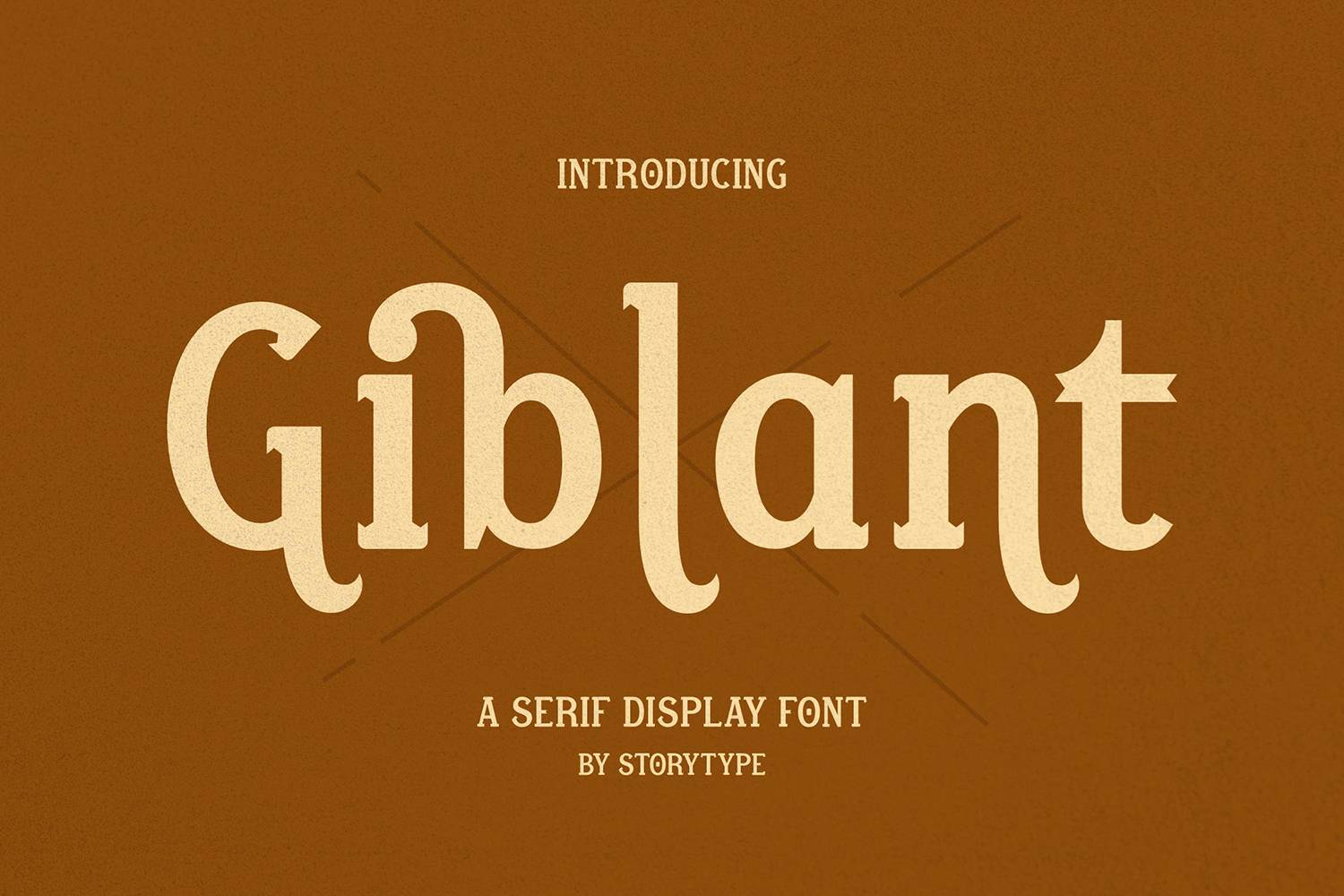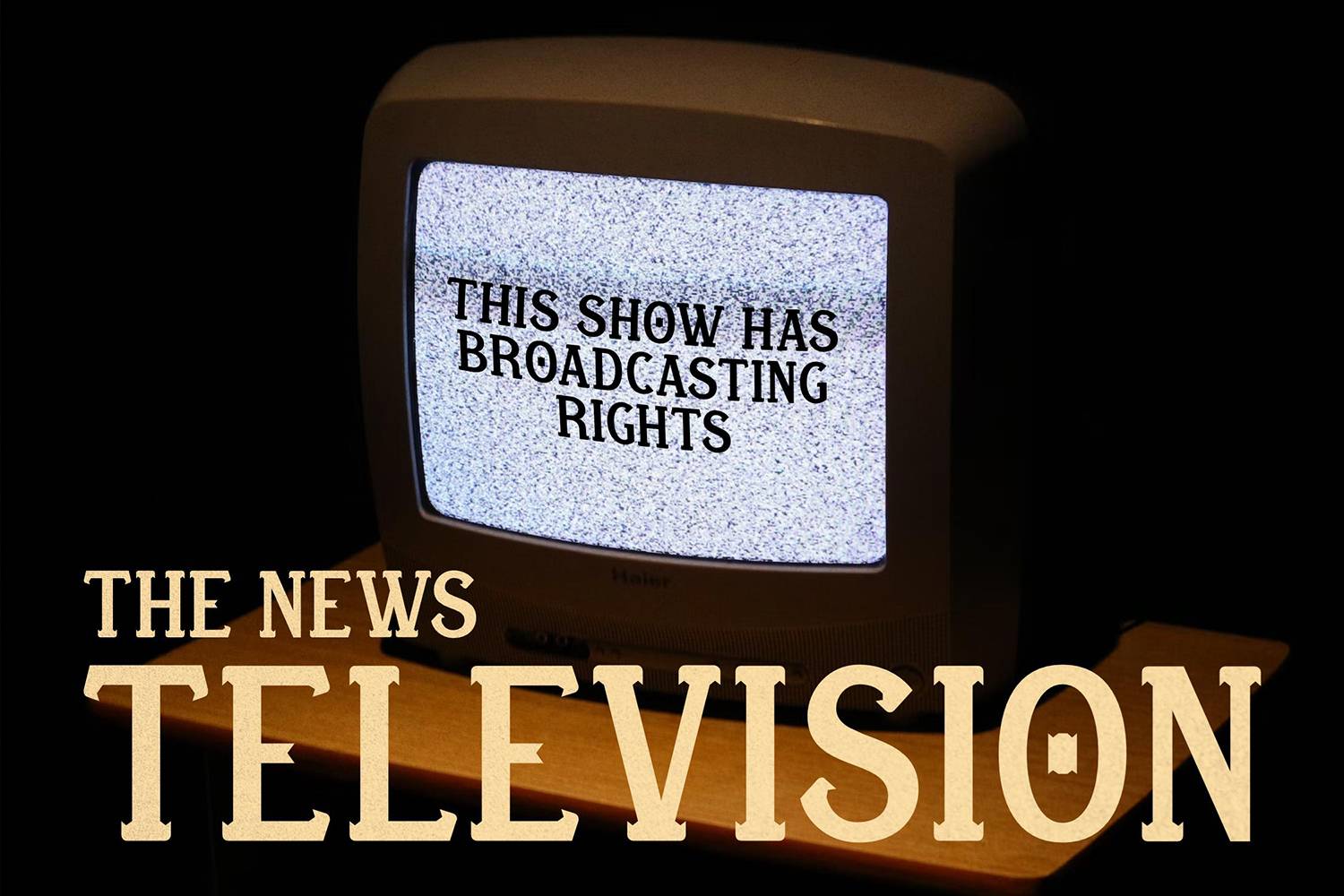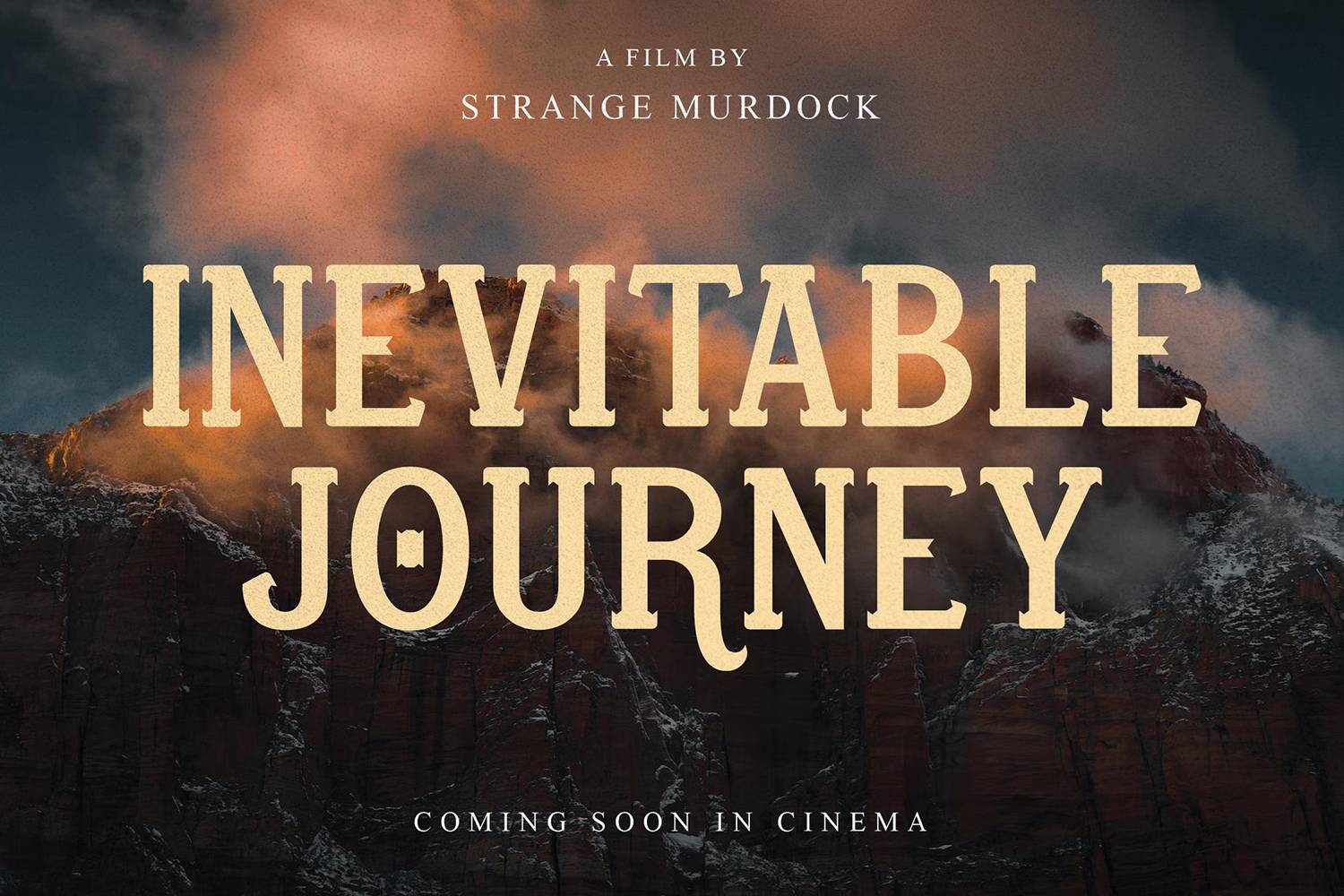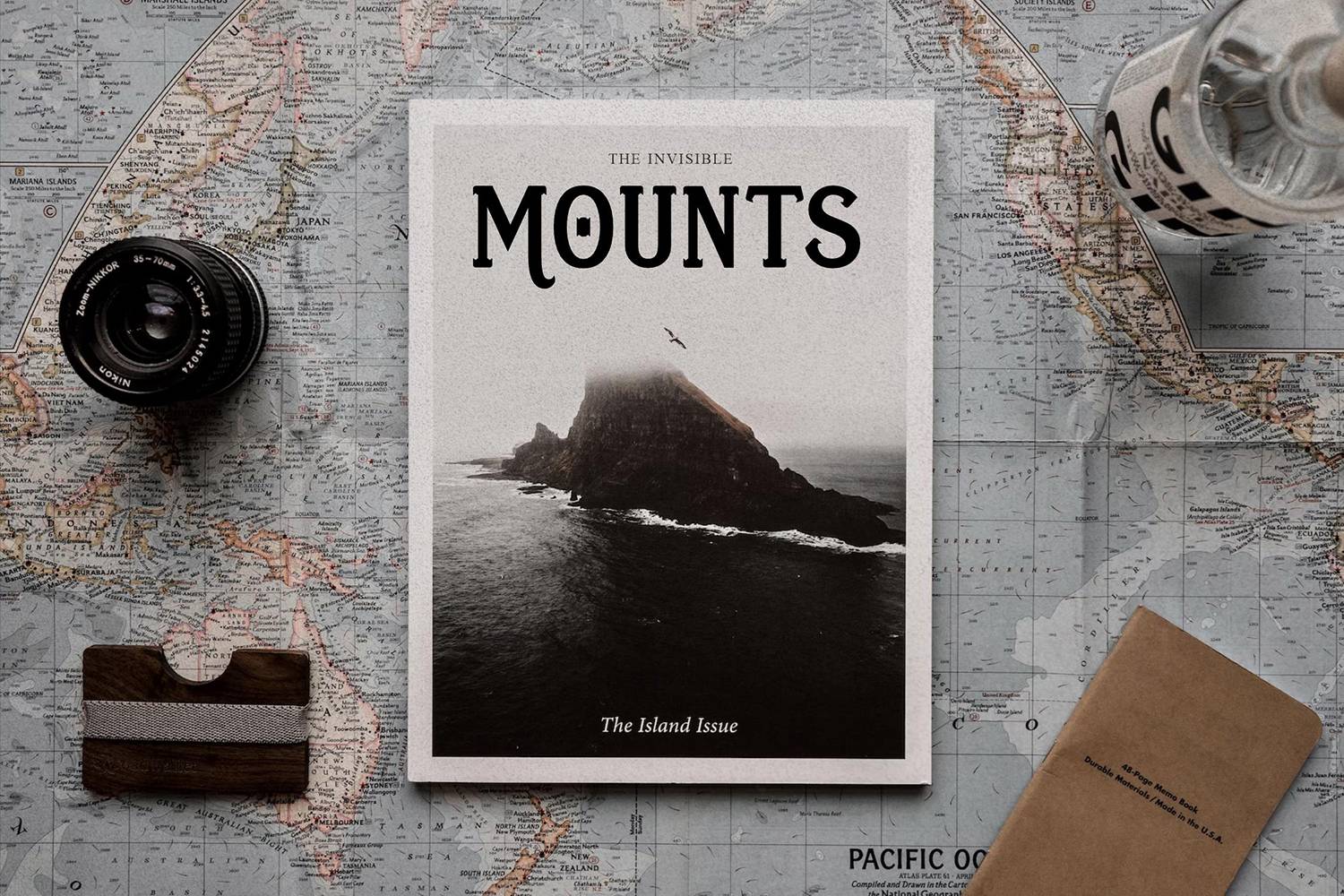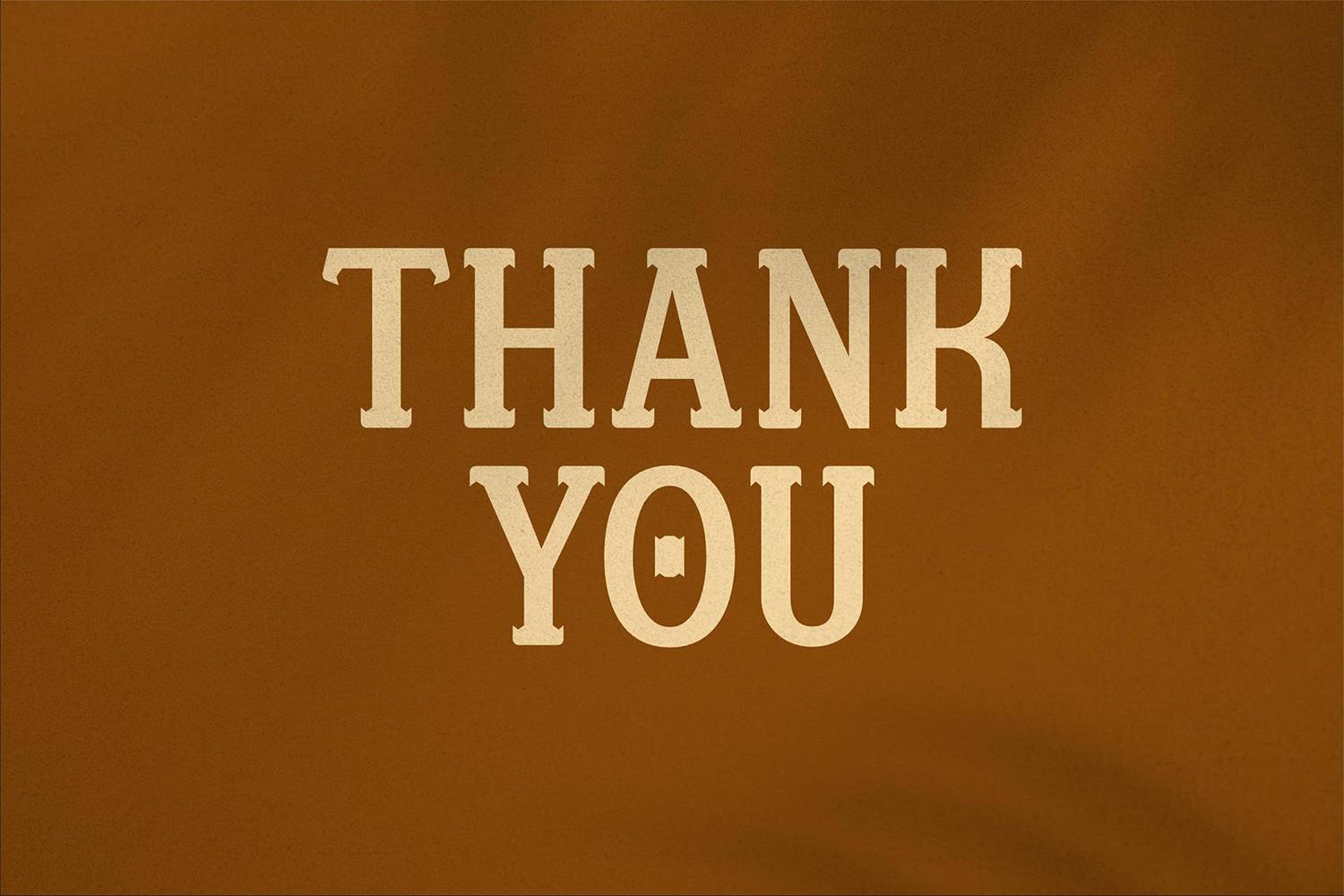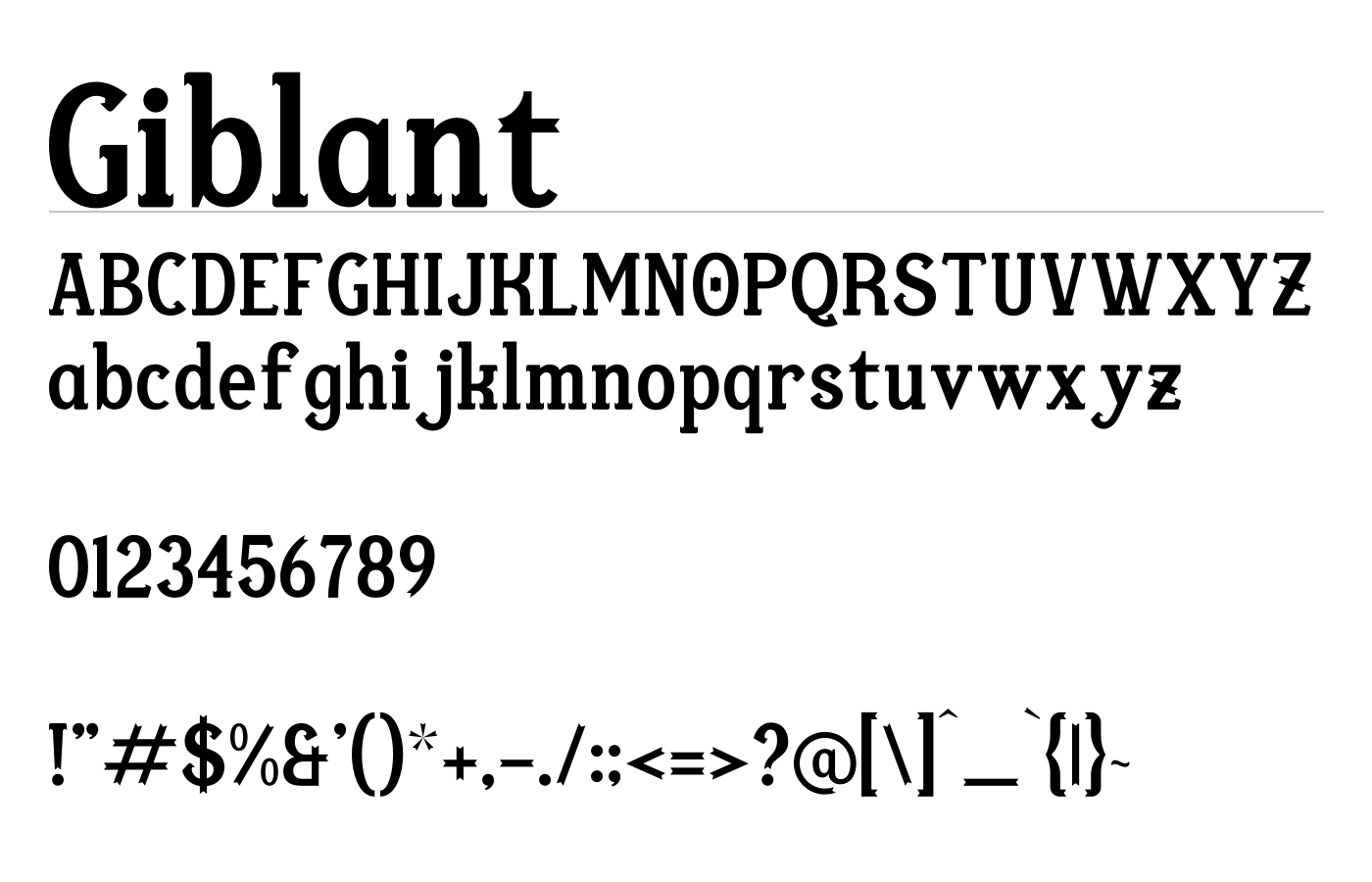
Giblant is a distinctive slab serif font with a bold and slightly condensed style, featuring strong, bracketed serifs and a moderate contrast between thick and thin strokes. Its unique letterforms, such as the single-story "g" and angled "Q" tail, lend a vintage yet robust personality, making it ideal for standout headlines, branding, and editorial use where a touch of classic character with modern impact is desired. This font works well for designs that need a confident, timeless presence with a slightly playful edge.
Giblant Font
About Giblant Font